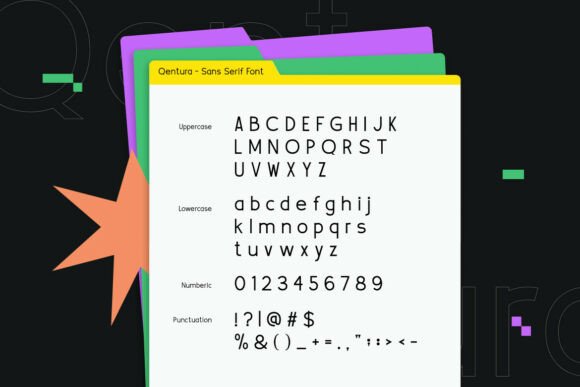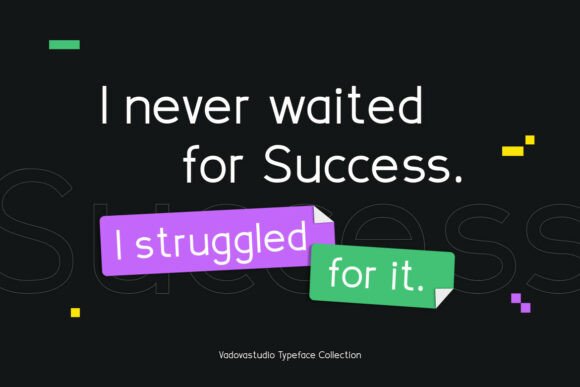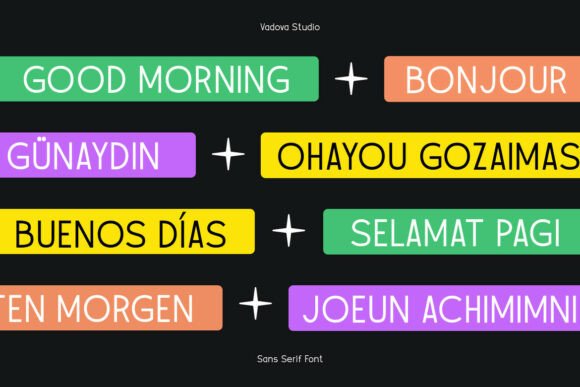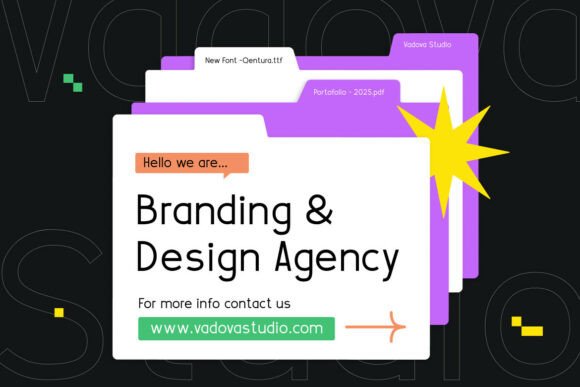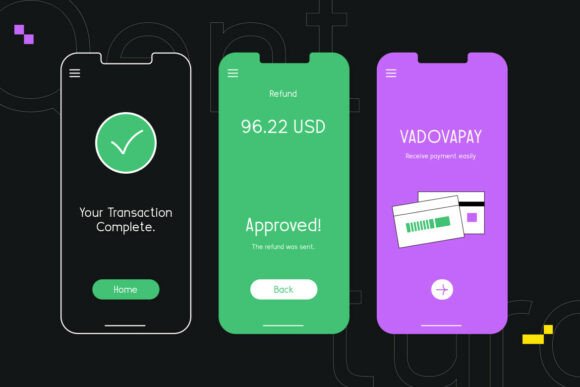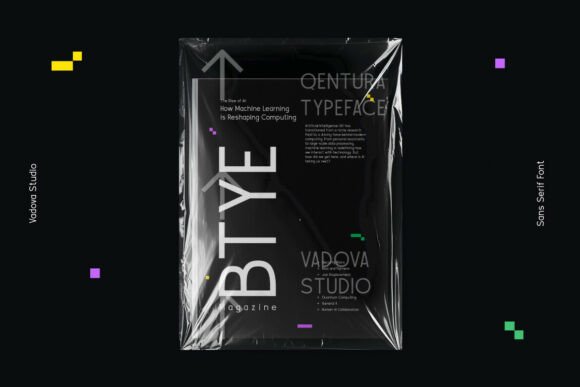
Introduction to Qentura Font
Have you ever stared at a blank screen, trying to find the perfect font to bring your creative project to life? The struggle is real, especially when you’re working on a high-stakes design project and every detail matters. That’s where Qentura Font comes in – a game-changing design resource that’s about to become your new go-to.
With its clean lines, balanced proportions, and minimal visual structure, Qentura Font is the epitome of modern typography. Its simple, precise letterforms are not only highly readable but also deliver a professional appearance that’s perfect for both digital and print applications. Whether you’re working on a free download or a high-quality design piece, Qentura Font is the perfect choice for designers who demand the best.
What sets Qentura Font apart is its versatility – it’s as comfortable on a transparent background as it is on a bold, eye-catching design. Its neutral design makes it a valuable addition to any designer’s toolkit, and its high-quality design ensures that your creative project will stand out from the crowd.
Key Features of Qentura Font
- High-quality, professional font suitable for creative projects and design resources.
- Comes with a transparent background, making it easy to use as a design element in various applications.
- Unique, stylish design that adds a touch of elegance to any creative project or design resource.
- Perfect for use in graphic design, digital art, and other creative endeavors where a high-quality font is essential.
Honest Review: Qentura Font
I recently had the opportunity to work with the Qentura Font in a creative project, and I must say it’s a fantastic addition to any design resource. The font’s sleek and modern design makes it perfect for projects that require a touch of sophistication.
- ✨ High-quality design: The Qentura Font is beautifully crafted, with clean lines and a professional look.
- ✨ Versatility: The font can be used for a wide range of creative projects, from business cards to signage.
- ✨ Transparent background: This feature makes it easy to use the font on any background, without worrying about visibility issues.
- ⚠️ Limited customization options: While the font is high-quality, there are limited options for customizing its appearance.
- ⚠️ Not suitable for all designs: The font’s modern design may not be the best fit for more traditional or vintage-style projects.
Overall, I’m impressed with the Qentura Font. It’s a valuable addition to any design resource, and its free download makes it accessible to designers of all levels. While it may not be perfect, it’s definitely worth checking out for your next creative project.
Introduction to Qentura Font
The Qentura Font is a high-quality design resource ideal for creative projects requiring a professional touch. It features a transparent background, making it easy to layer with other design elements.
Tips for Getting the Most Out of Qentura Font
Experiment with different font sizes, colors, and combinations to achieve the desired look for your design project.
The Qentura Font is suitable for a wide range of design projects, including:
Business cards, brochures, and marketing materials
Presentations, reports, and documents
Branding and logo designs
Alternatives to Qentura Font
Montserrat is a modern sans-serif font perfect for creative projects that require a clean and sophisticated look. It’s ideal for designing websites, mobile apps, and marketing materials. Montserrat is available for free download and offers a transparent background, making it a great alternative to Qentura Font.
Comparison to Qentura Font: Montserrat has a more geometric and minimalist design, whereas Qentura Font has a more elegant and refined look. Montserrat is ideal for high-contrast designs, while Qentura Font is better suited for designs with a more subtle color palette.